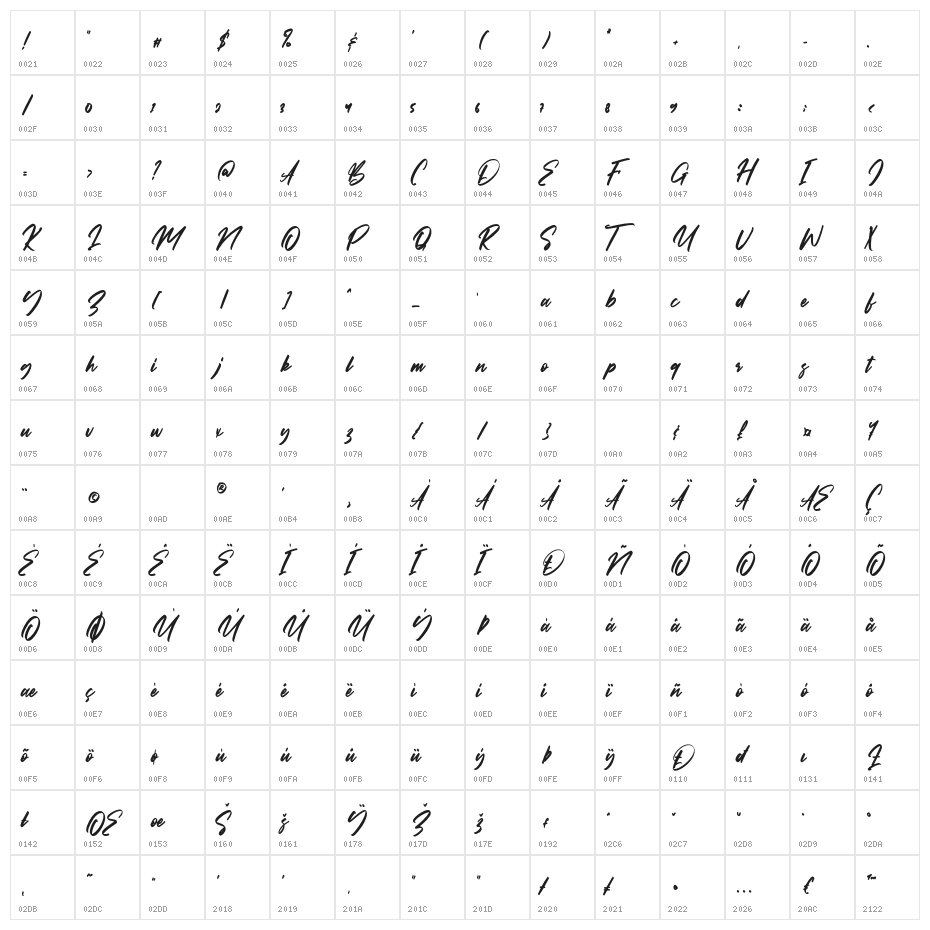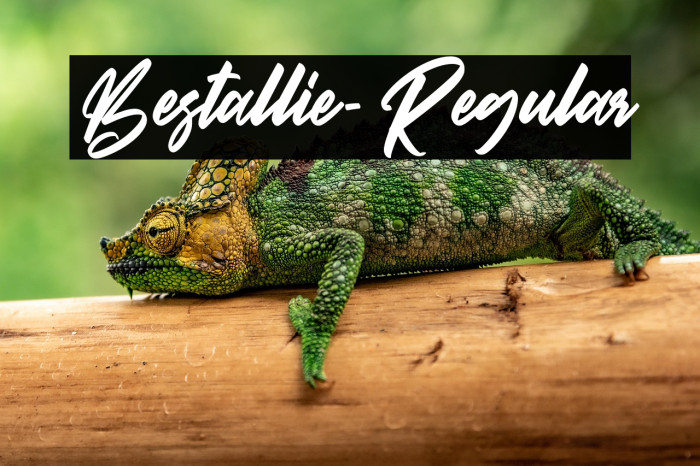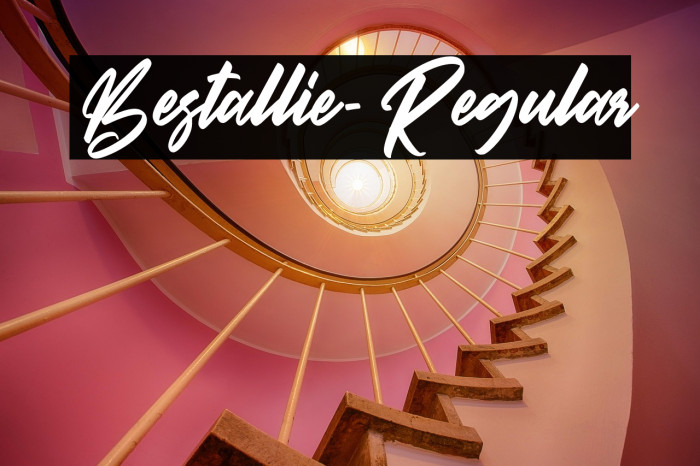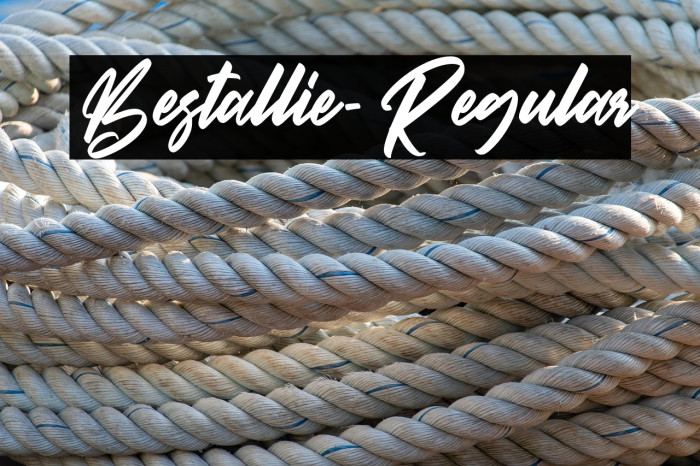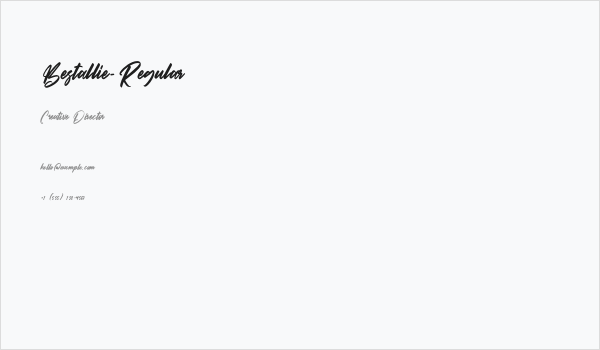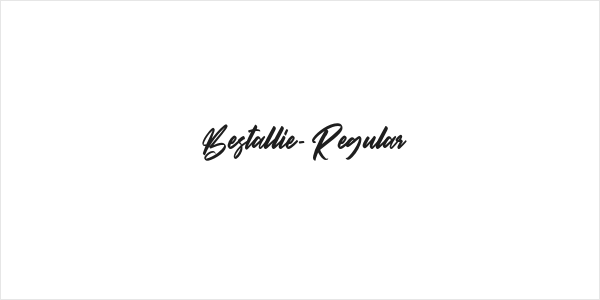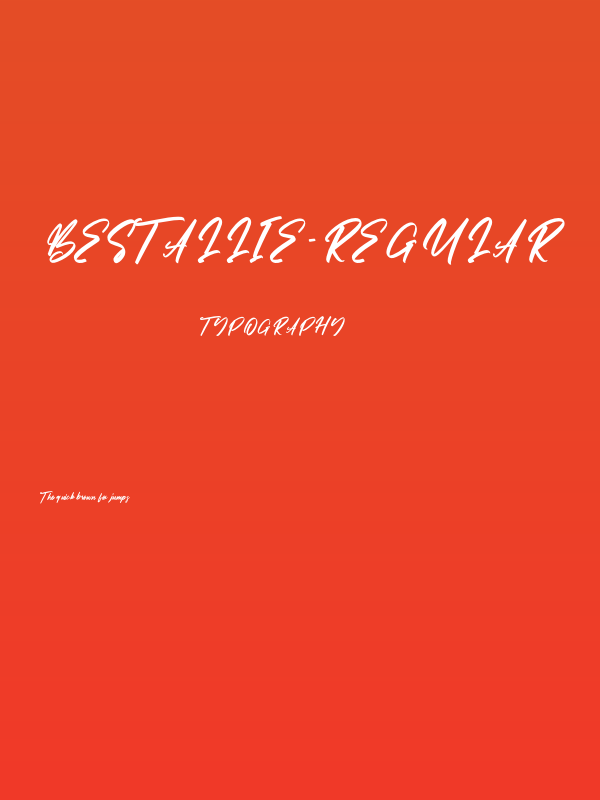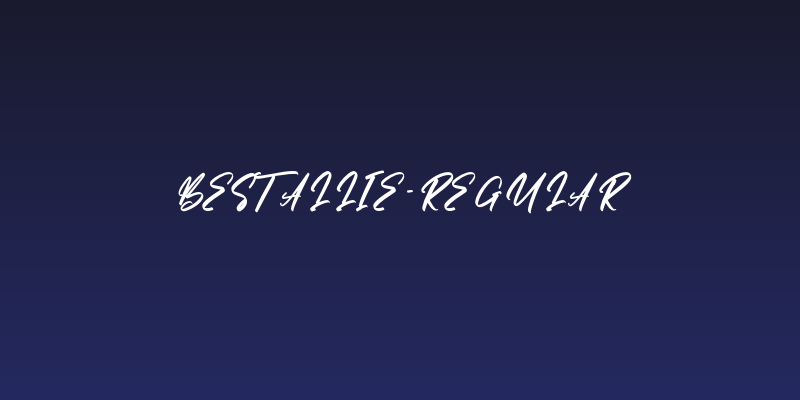
Bestallie-Regular Font
Bestallie-Regular Description
This font exudes a dynamic and expressive style, characterized by its fluid and cursive script. The letters are interconnected, creating a sense of continuity and flow. The strokes are bold and confident, with a slight slant that adds to its energetic appearance. The uppercase letters are distinctive, with unique flourishes that enhance their individuality. The lowercase letters maintain a consistent rhythm, contributing to the overall harmony of the typeface. The numerals are clear and legible, while the special characters complement the font's lively aesthetic.
| Proposed Projects | Ideal for branding, invitations, greeting cards, and creative projects that require a personal touch. |